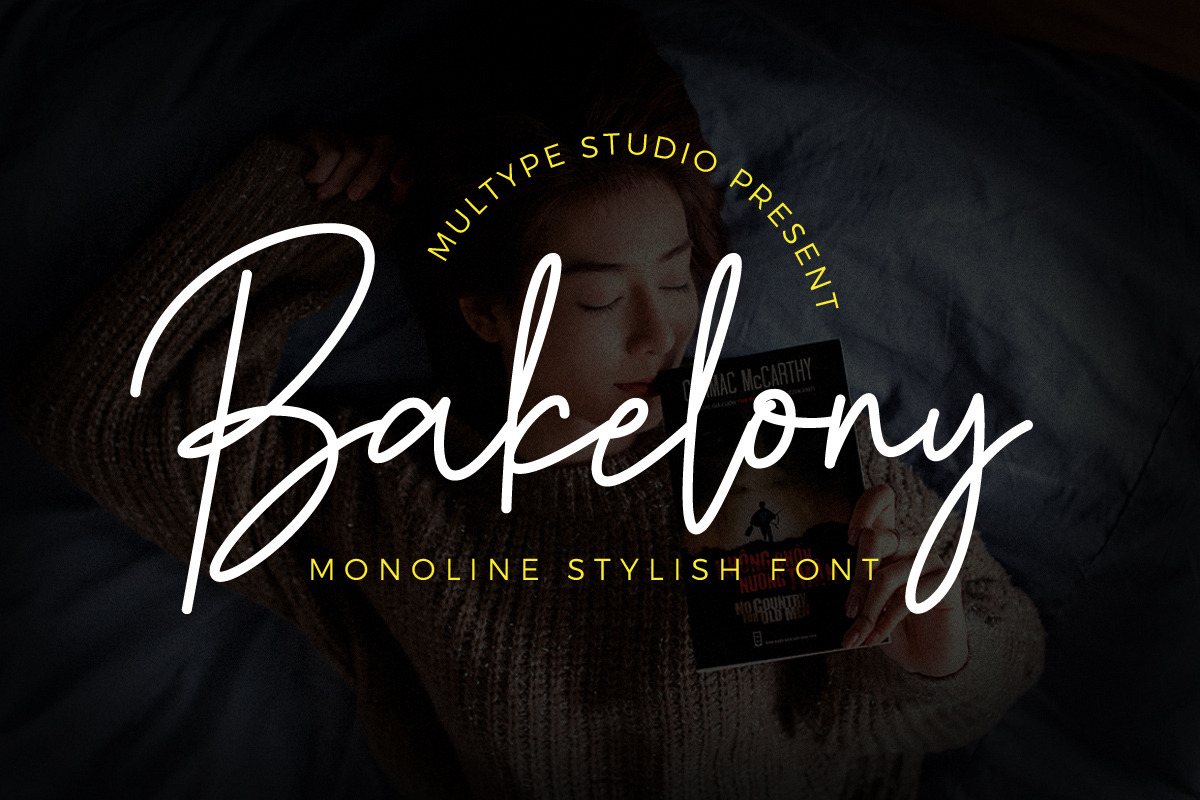
Bakelony Stylish Font
Bakelony is a monoline stylish script font. Bakelony is perfect for photography, watermark, social media posts, advertisements, logos & branding, invitation, product designs, label, stationery, wedding designs, product packaging, special events or anything that need handwriting taste.